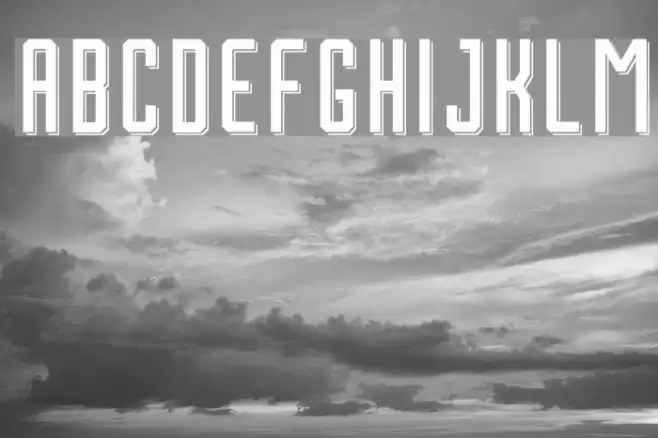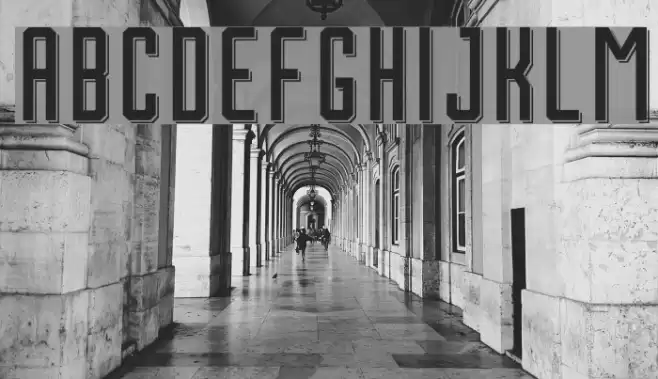
Houston Shadow Font
Houston Shadow Description
This font features a bold, geometric design with a distinctive shadow effect that gives it a three-dimensional appearance. The uppercase letters are tall and narrow, with sharp angles and clean lines, creating a modern and impactful look. The shadow adds depth and a sense of movement, making it stand out in any design. The font is well-suited for headlines and titles, where its unique style can be fully appreciated. Its structured formality is balanced by the playful shadow, making it versatile for various creative projects.
A bold, geometric font with a distinctive shadow effect for a modern, impactful look from Uncategorized fonts.
- Proposed Projects: Ideal for posters, logos, headlines, and branding materials that require a striking and modern appearance.